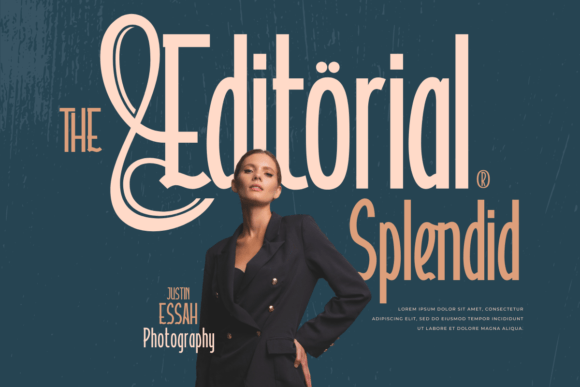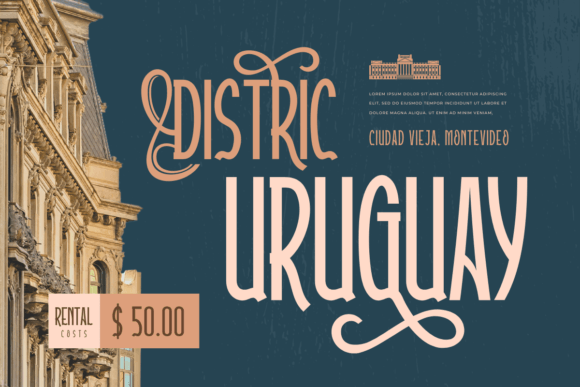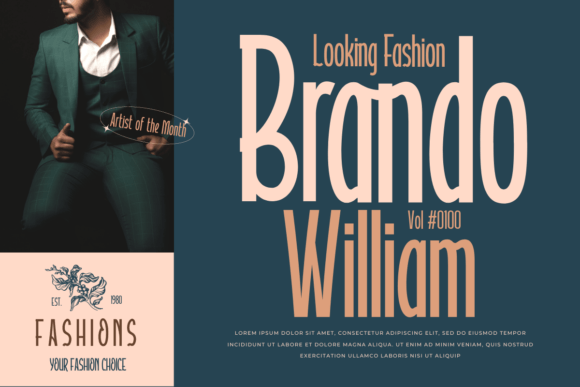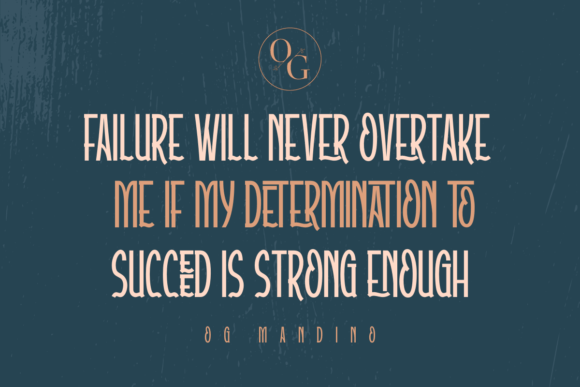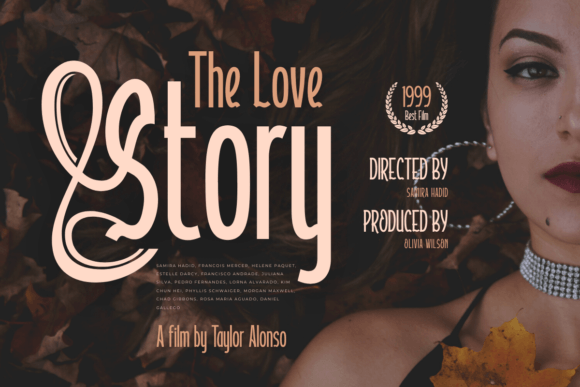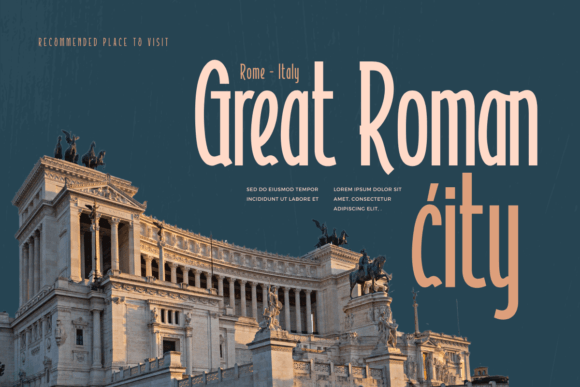
Introducing Atoverz: The Ultimate Retro Condensed Font for Your Next Project
Are you on the hunt for a font that combines classic retro style with modern functionality? Look no further than Atoverz, the perfect retro condensed font for your next design project. With its sleek and elegant design, Atoverz is sure to elevate your branding, logos, posters, and advertisements to the next level.
What is Atoverz?
Atoverz is a carefully crafted retro condensed font that embodies the essence of classic design while offering a modern twist. Its unique blend of vintage charm and contemporary style makes it an ideal choice for designers and crafters looking to add a touch of nostalgia to their work.
Key Features of Atoverz
- Retro Classic Style: Atoverz boasts a distinctive retro design that is sure to catch the eye of your audience and leave a lasting impression.
- Sleek and Elegant Design: The font’s sleek and elegant design makes it perfect for a wide range of projects, from logos and branding to posters and advertisements.
- PUA Encoded: Atoverz is PUA encoded, meaning you can access all delightful glyphs and swashes effortlessly, giving you maximum creative flexibility.
- Highly Versatile: Whether you’re working on a logo, brochure, or social media graphic, Atoverz is the perfect choice for any design project.
Why Choose Atoverz?
With so many fonts available, why choose Atoverz for your next project? Here are just a few reasons why Atoverz stands out from the crowd:
- Unique Retro Style: Atoverz offers a unique retro style that is sure to set your design apart from the rest.
- Ease of Use: The font’s PUA encoding makes it easy to access all glyphs and swashes, saving you time and effort.
- High-Quality Design: Atoverz is designed to the highest standards, ensuring that your final design looks professional and polished.
How to Use Atoverz
Using Atoverz is easy, even if you’re new to font design. Here are a few tips to get you started:
- Pair it with Other Fonts: Atoverz pairs well with other fonts, so feel free to experiment with different combinations to find the perfect look for your design.
- Experiment with Glyphs and Swashes: With Atoverz’s PUA encoding, you can easily access a range of glyphs and swashes to add a personal touch to your design.
- Use it for Branding: Atoverz is perfect for branding projects, such as logos and letterheads, where a professional and polished look is essential.
Who is Atoverz for?
Atoverz is perfect for a wide range of designers and crafters, including:
- Graphic Designers: Atoverz is ideal for graphic designers looking for a unique and versatile font for their next project.
- Logotype Designers: The font’s sleek and elegant design makes it perfect for logotype designers looking to create a professional and polished logo.
- Crafters: Atoverz is also perfect for crafters who want to add a personal touch to their DIY projects, such as handmade cards and invitations.
In conclusion, Atoverz is the perfect retro condensed font for your next design project. With its unique retro style, sleek and elegant design, and PUA encoding, Atoverz offers the perfect combination of style and functionality. Whether you’re a graphic designer, logotype designer, or crafter, Atoverz is sure to elevate your design to the next level.